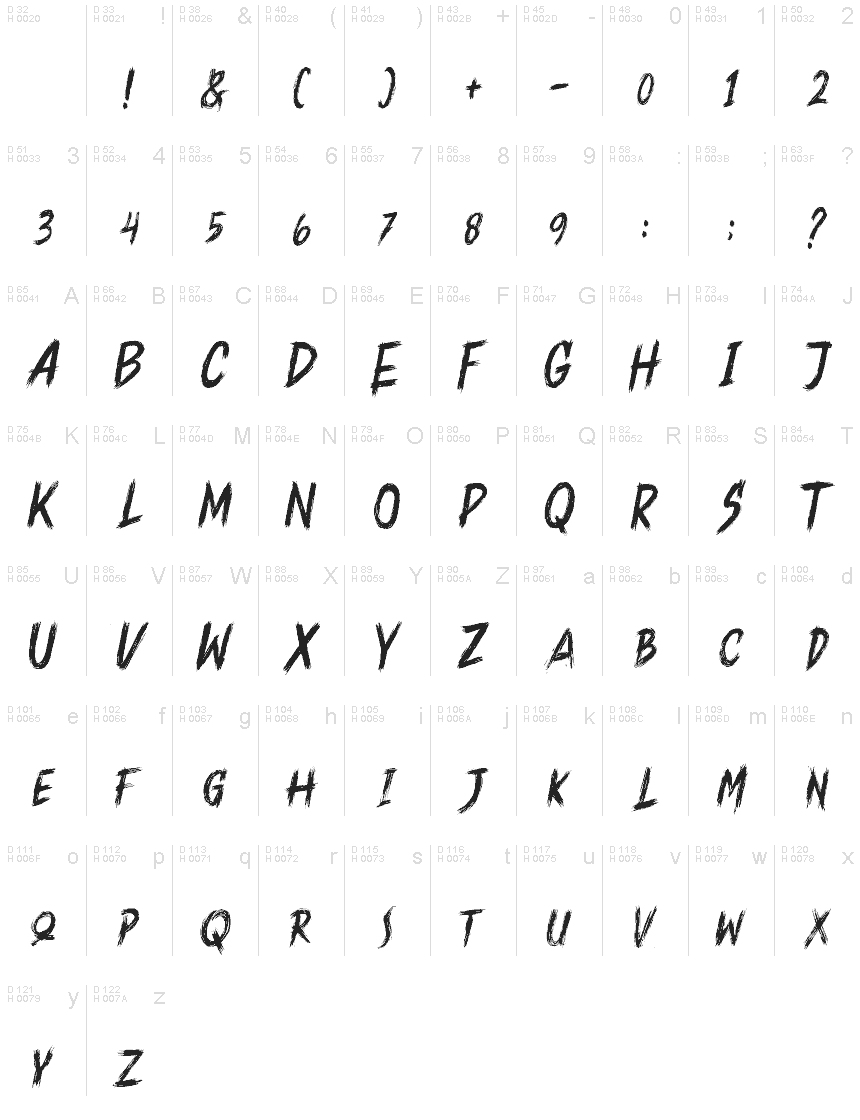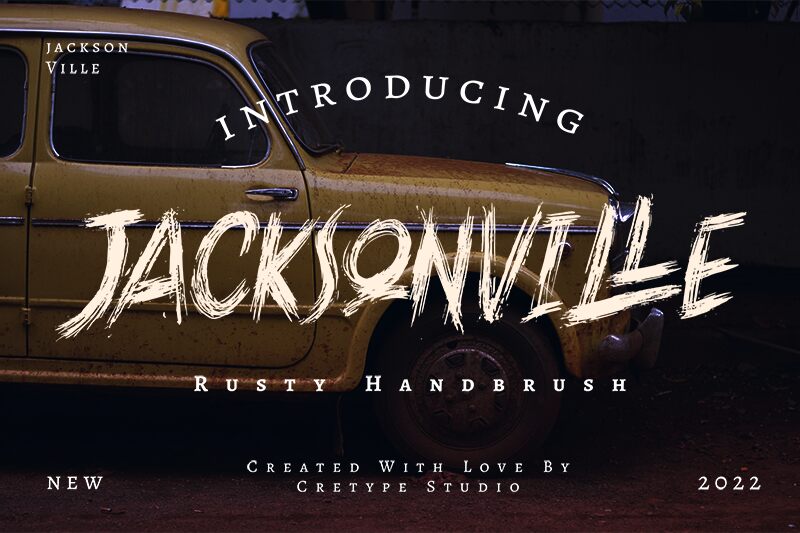
Jacksonville
Jacksonville font by Creatype Studio is a brush style display font with an unpleasant, raw, and gritty appearance. Its letters have a scratchy texture that gives a rebellious feel and it makes the perfect way to display your unconventional creativity. The font evokes energy and movement, representing modern and punk themes along the way.
Use the free brush Jacksonville font for unusual projects such as punk music album covers or urban-themed branding. Create street-art-inspired designs in titles, headlines, product packaging, branding designs for modern products or services logos, slogans on posters as well as blogging or social media posts and banners.